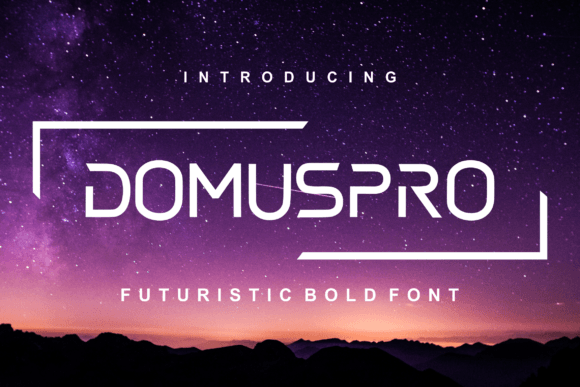
Unleashing the Power of Domus Pro Font
Have you ever been brainstorming for hours, pouring over ideas, and suddenly, the perfect concept strikes you like a bolt of lightning? That’s exactly what happened to us when we stumbled upon the futuristic display font that’s taking the design world by storm – the Domus Pro Font.
This quirky yet captivating font is designed to push the boundaries of creativity and make a statement in a wide range of applications. From futuristic sci-fi projects to edgy fashion brands, the Domus Pro Font is the perfect addition to any designer’s toolkit.
What sets the Domus Pro Font apart is its unique blend of style and versatility. With its bold lines and futuristic feel, it’s a valuable asset for designers looking to add a touch of innovation to their projects. Whether you’re a seasoned pro or just starting out, the Domus Pro Font is sure to inspire and elevate your designs to the next level.
Domus Pro Font Key Features
- Font Family: Domus Pro is a sans-serif font family with 6 weights, ranging from Light to Extra Bold.
- Character Set: Supports a wide range of languages, including Latin, Cyrillic, and Greek scripts, making it a versatile choice for global applications.
- Unique Characteristics: Domus Pro features a clean, modern design with subtle rounded corners and open apertures, giving it a friendly and approachable feel.
Domus Pro Font Review
Domus Pro Font is a solid choice for those looking for a clean and elegant sans-serif font. I was immediately drawn to its sleek lines and refined aesthetic. ✨ The font’s versatility makes it suitable for a wide range of applications, from corporate branding to digital interfaces.
Here are some of the key strengths of Domus Pro Font:
- ✨ High level of legibility, making it perfect for body text and digital interfaces
- ✨ Versatile and adaptable to various design contexts
- ✨ Robust font set with multiple weights and styles
- ⚠️ The font may appear too sterile or cold in certain contexts, lacking a unique character
- ⚠️ Limited script or decorative elements, which may be a drawback for designers seeking a more dynamic look
Overall, Domus Pro Font is a dependable choice for designers seeking a clean and professional sans-serif font. While it may not be the most exciting or unique font, it gets the job done with ease. Its strengths in legibility and versatility make it a solid addition to any design library.
Tip: Use Domus Pro Font for headings and titles to add a touch of elegance to your design.
Tip: Use Domus Pro Font for typography-heavy designs, such as posters or brochures.
Tip: Use Domus Pro Font for presentations and documents that require a professional touch.
Domus Pro Font is ideal for:
- Corporate branding and identity
- Typography-heavy designs
- Business cards and stationery
Alternatives to Domus Pro Font
Montserrat is a modern sans-serif font that is perfect for digital interfaces, particularly for websites and mobile apps. It’s a great alternative to Domus Pro Font for designers who want a clean and minimalist look. Montserrat is highly legible and works well for body text, headings, and titles. It’s also free to use, making it a great option for designers on a budget. Compared to Domus Pro Font, Montserrat is more geometric and has a slightly more modern feel.
Open Sans is a clean and modern sans-serif font that is highly legible and works well for digital interfaces. It’s a great alternative to Domus Pro Font for designers who want a font that is easy to read and works well for body text and headings. Open Sans is also free to use and is widely used in the design community. Compared to Domus Pro Font, Open Sans is more rounded and has a slightly more friendly feel.
Lato is a modern sans-serif font that is highly legible and works well for digital interfaces. It’s a great alternative to Domus Pro Font for designers who want a font that is clean and modern, but also has a touch of elegance. Lato is also free to use and is widely used in the design community. Compared to Domus Pro Font, Lato is more elegant and has a slightly more sophisticated feel.